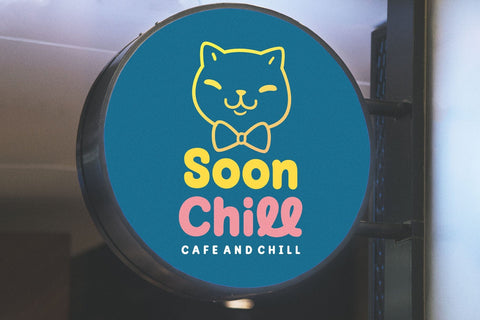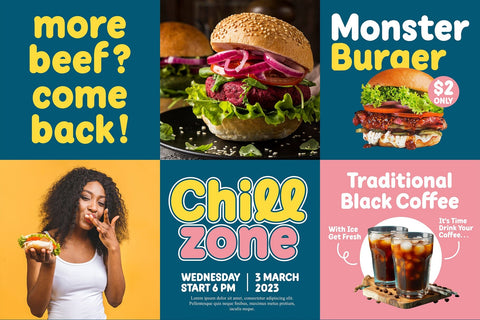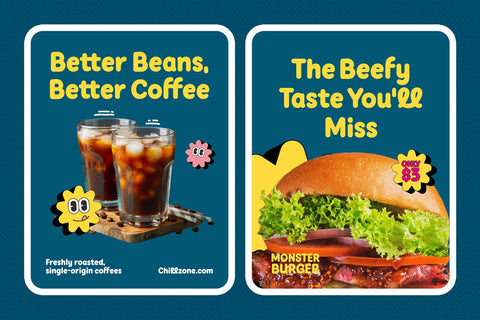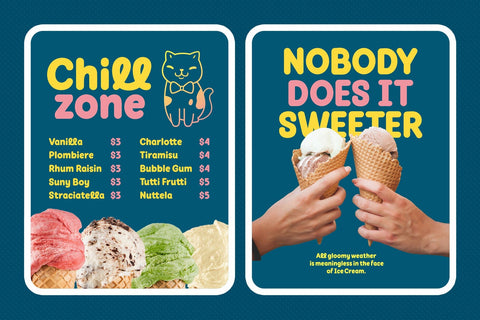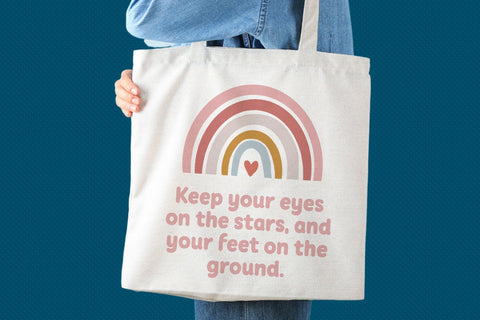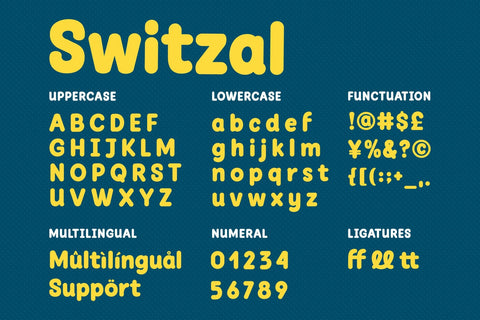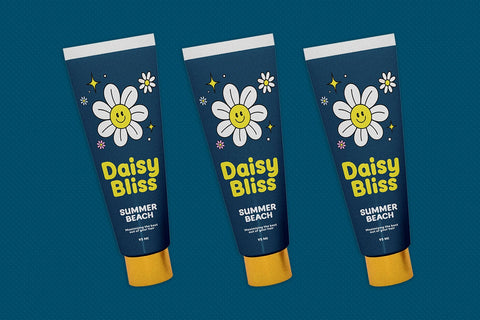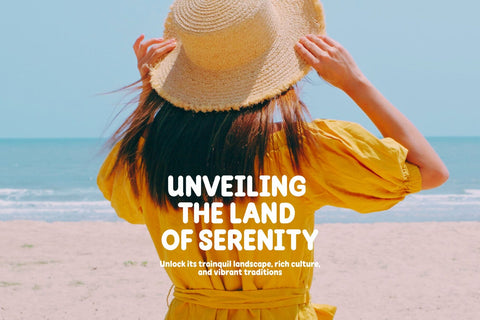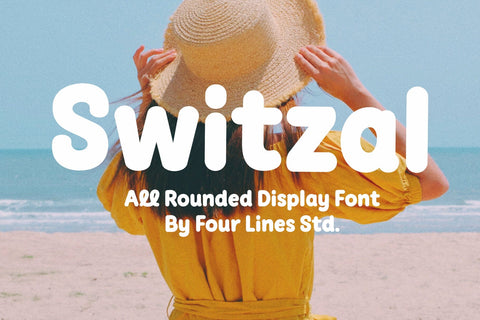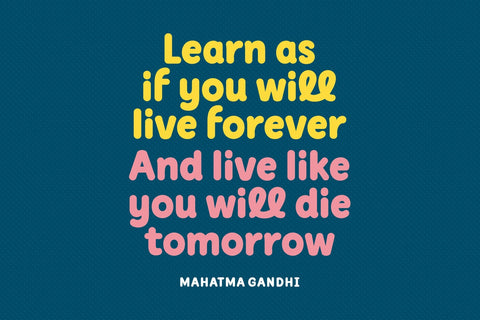
Switzal - Rounded Display Font
"Switzal Font" speaks a universal language of happiness and optimism. It transcends age, culture, and borders, making it perfect for projects that aim to connect with a wide audience.
Let your imagination run wild as you create eye-catching headlines, captivating slogans, or playful branding. "Switzal" font is your ticket to infuse a dose of happiness into your designs.